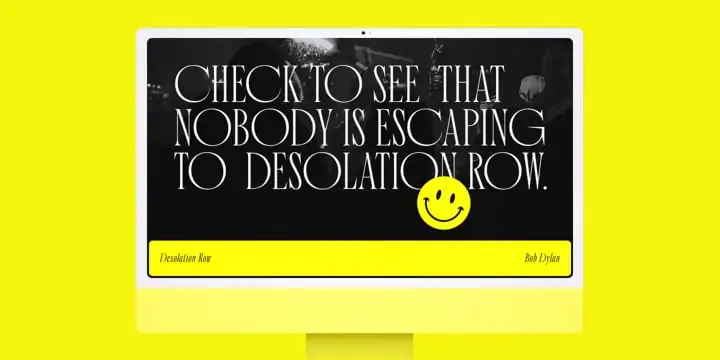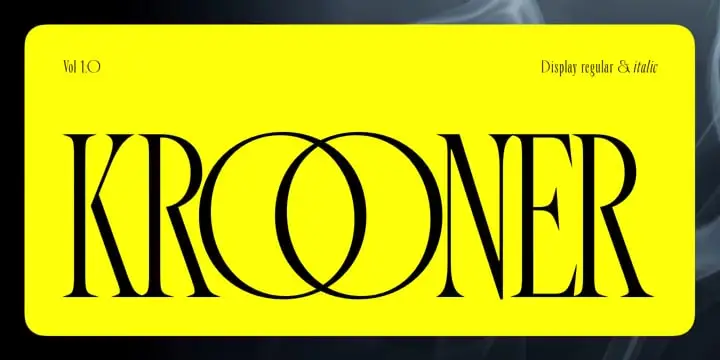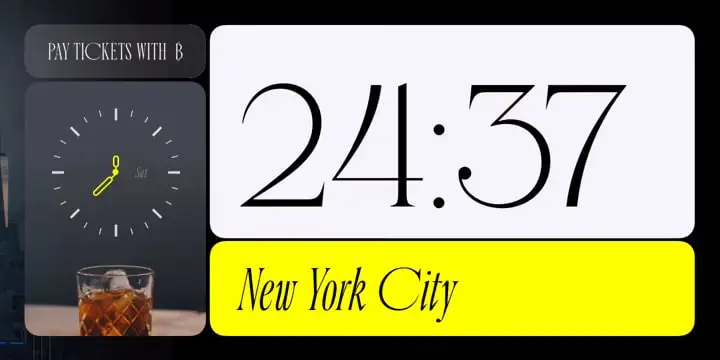
Krooner Font
The Krooner Font is a stylish and versatile typeface that brings a touch of elegance to your designs. With its unique blend of modern and classic elements, this font is perfect for a wide range of applications, from branding and logos to web and print projects.
• Multiple font weights for flexibility
• Stylish uppercase and lowercase letters
• Numerous special characters and glyphs
• Clean and legible design
Utilize the Krooner Font for creating eye-catching logos, stylish headlines, and elegant invitations. Its versatility makes it suitable for both digital and print media, ensuring your designs stand out.